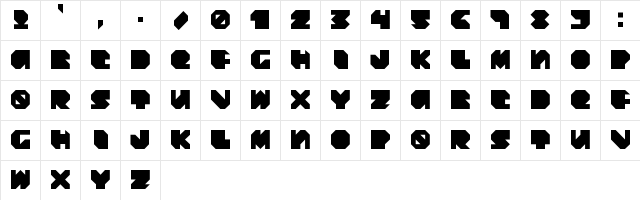
Daydream Daily Regular
Design Context for Daydream Daily Typeface
Daydream Daily is a composed and adaptable typeface that performs quietly and consistently across a wide range of design contexts.